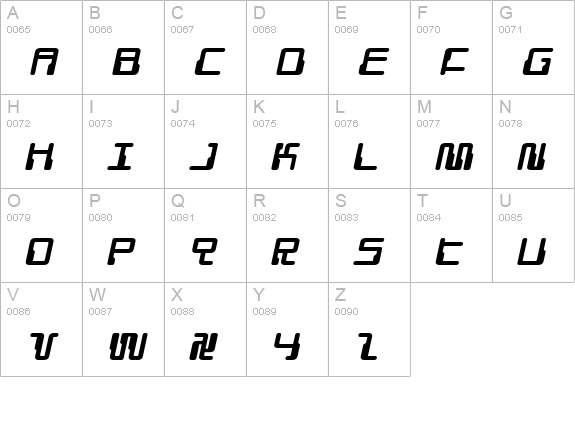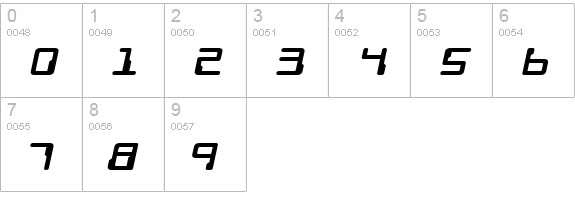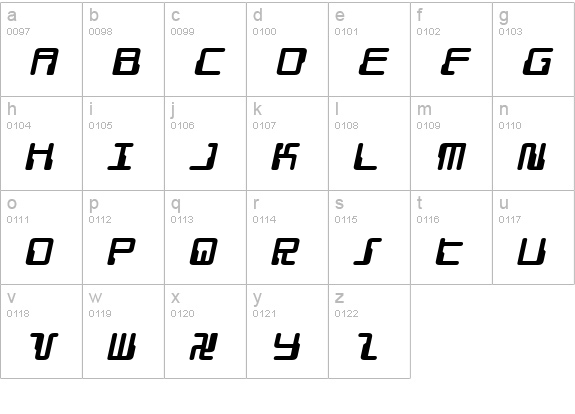
Droid Lover Expanded Italic is a distinctive, extended-width, italic variant in the Droid typeface family \xE2\x80\x94 well suited to design and typography projects.
Droid Lover Expanded Italic is a sleek and modern font designed for those who have a love for all things futuristic and tech-inspired. Its bold and italicized design exudes a sense of confidence and sophistication, making it perfect for a wide range of design projects. This font is not only visually striking but also highly versatile, making it suitable for a variety of applications such as branding, web design, advertising, and more. Its expanded form adds a unique touch that sets it apart from other fonts, making it a standout choice for those looking to make a statement with their typography. Best of all, Droid Lover Expanded Italic is available for free download at FontsMarket.com, allowing you to effortlessly incorporate this stylish font into your projects without breaking the bank. Don't miss out on the opportunity to elevate your designs with this modern and dynamic typeface. Download Droid Lover Expanded Italic today and let your creativity soar!